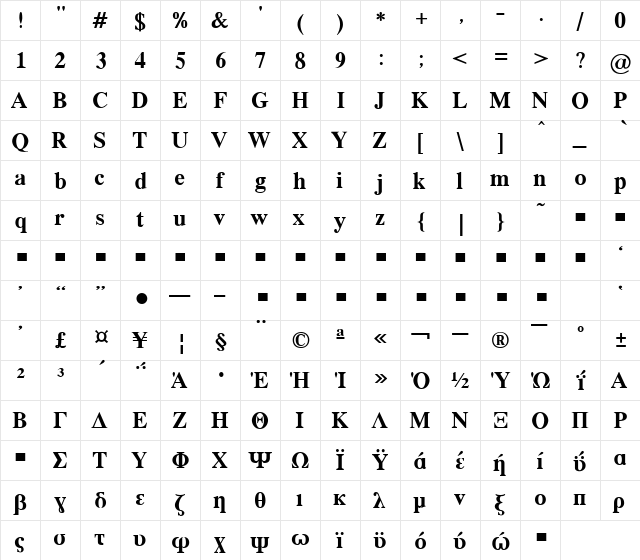
AWRomanGk Bold Font Preview
AWRomanGk Bold
Design Context for AWRomanGk Typeface
AWRomanGk is a composed and adaptable typeface that performs quietly and consistently across a wide range of design contexts. Its bold stroke weight gives it real presence on the page.